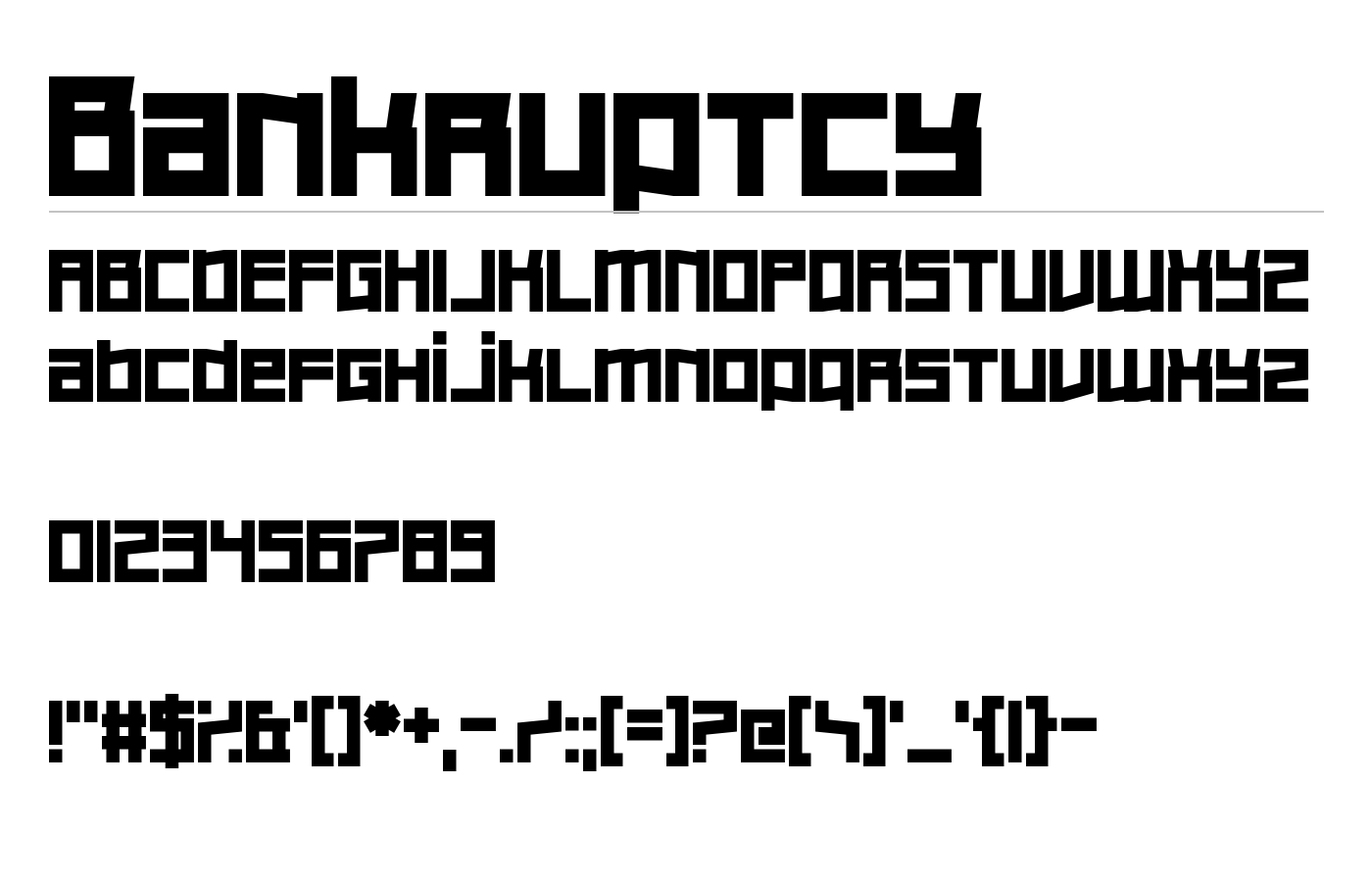
Bankruptcy Font is a bold, condensed, geometric sans serif with a strong, industrial feel and sharp angles that give it a modern, edgy character. Its uniform stroke weight and unique, blocky letterforms make it ideal for impactful headlines, posters, and branding that seek a tough, futuristic, or tech-inspired vibe. This font works best where a bold, confident statement is needed, especially in creative and urban-themed designs.
Bankruptcy Font
About Bankruptcy Font
| Font family | Bankruptcy Font |
| Designer | Allison James |